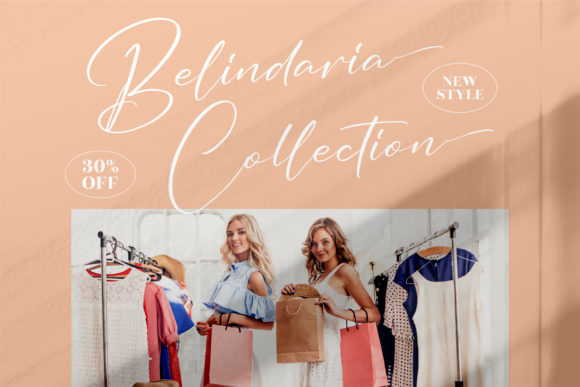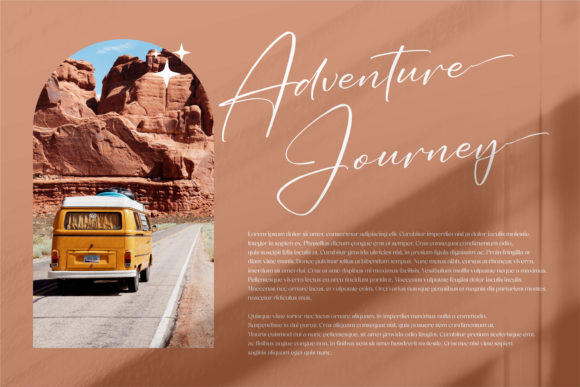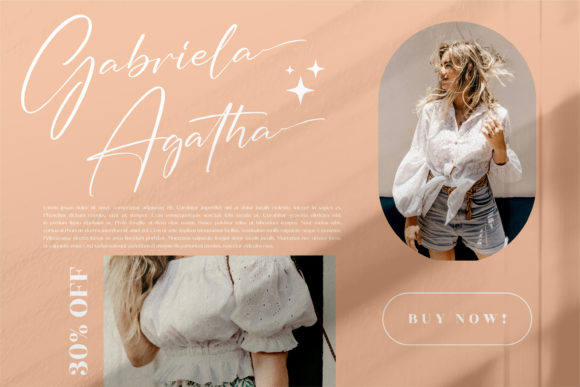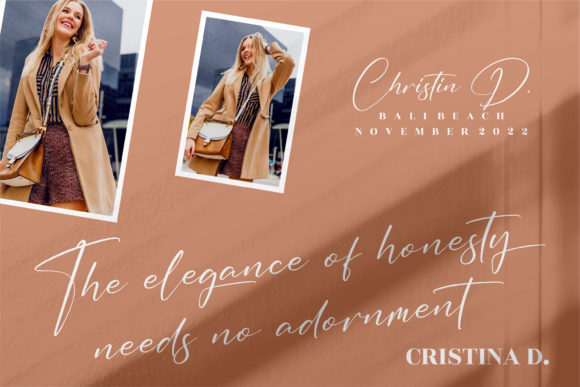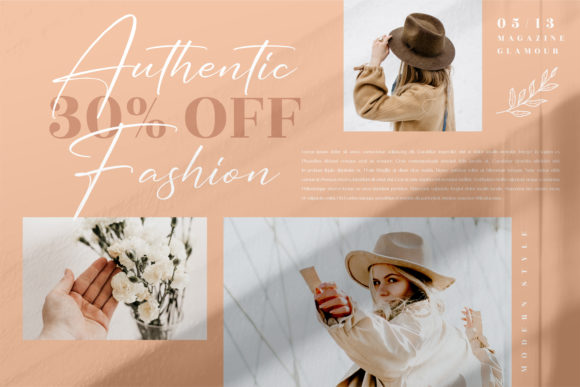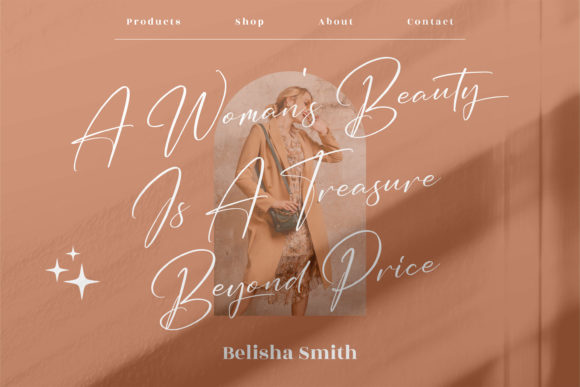
Introduction to Handmagic Signature Font
Handmagic Signature is a delicate script font carefully created with a touch of elegance.
This font is PUA encoded which means you can access all of the glyphs and swashes with ease .
Key Features of Handmagic Signature Font